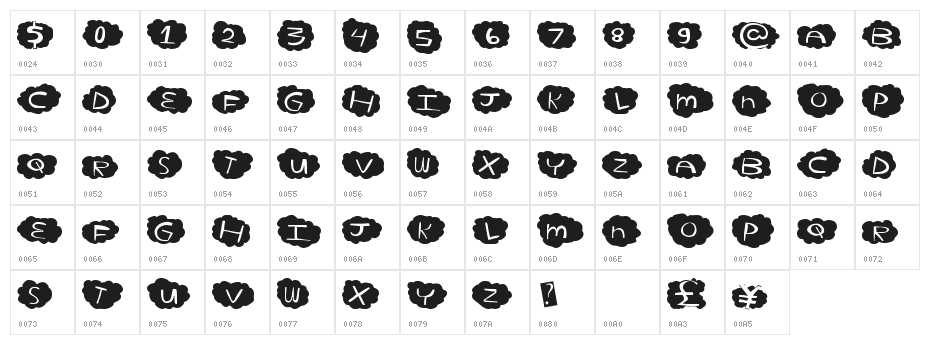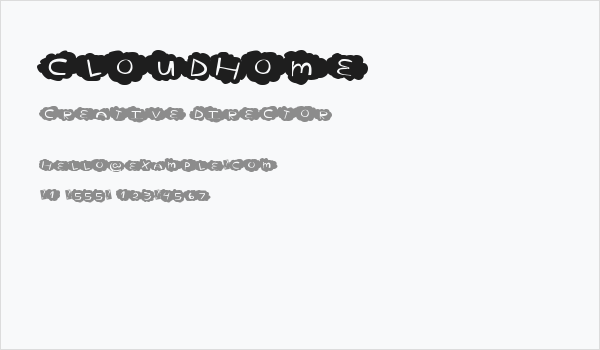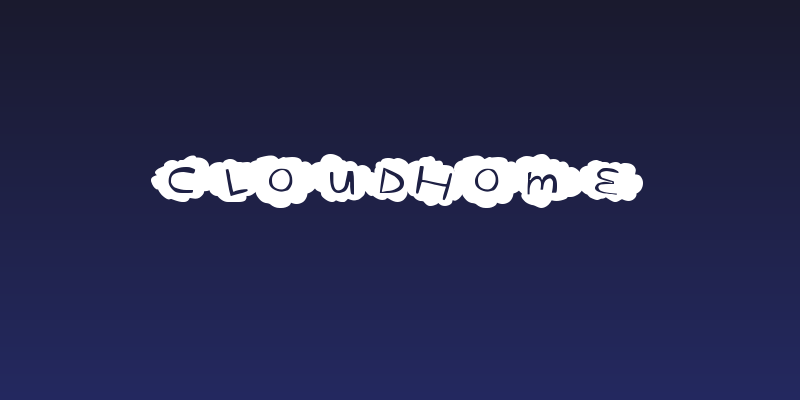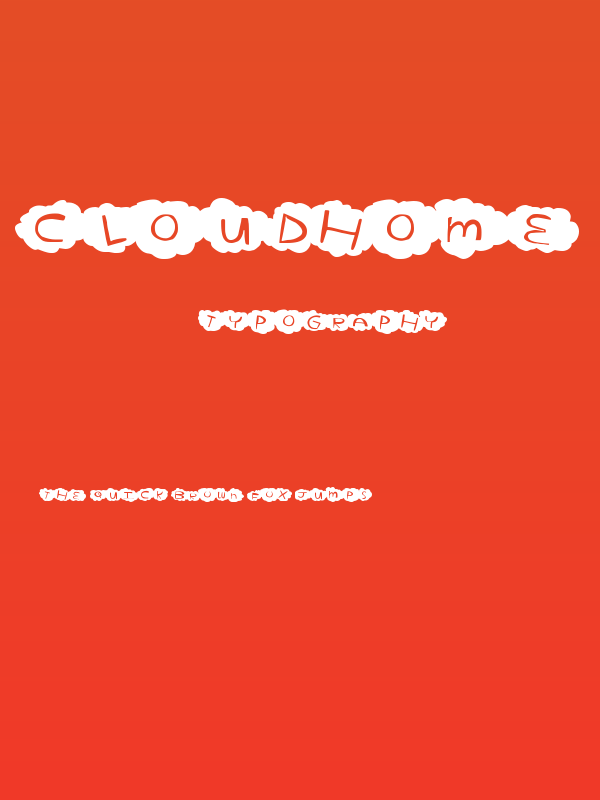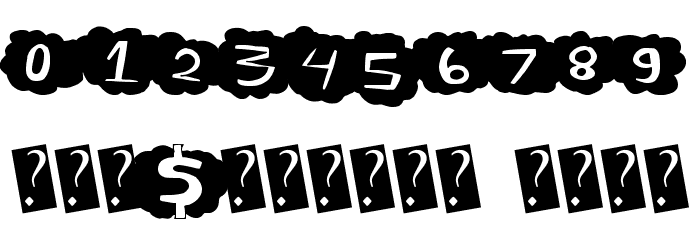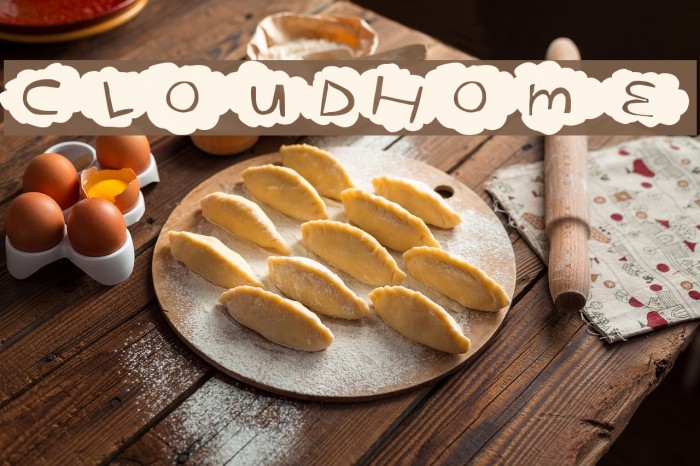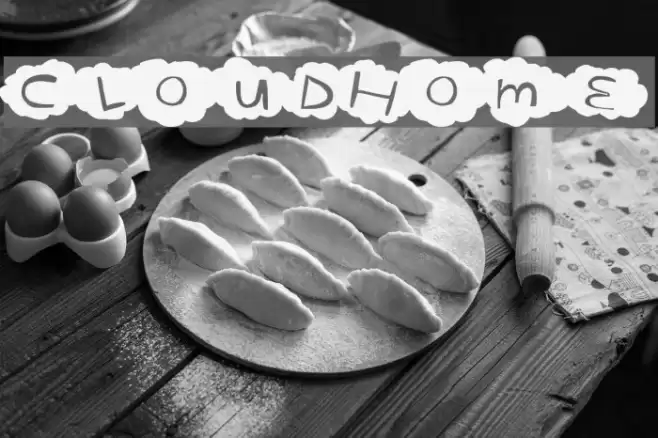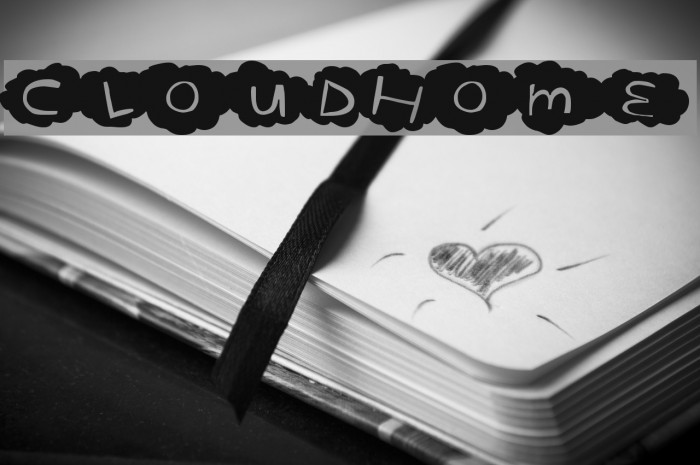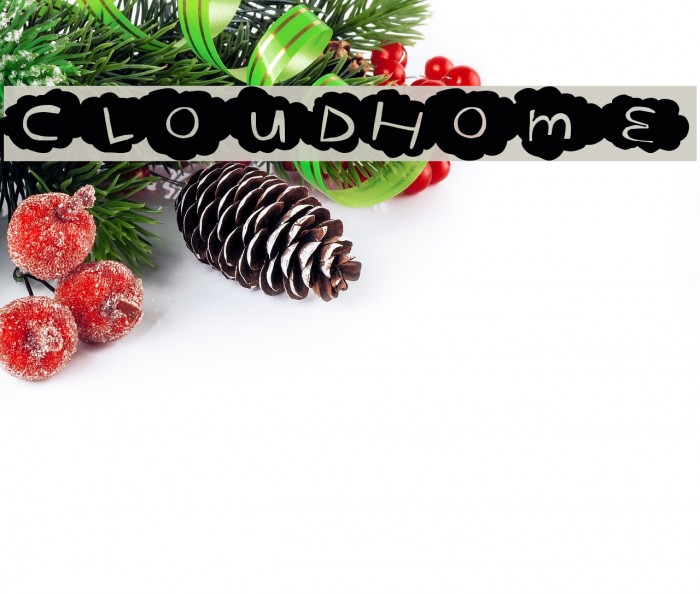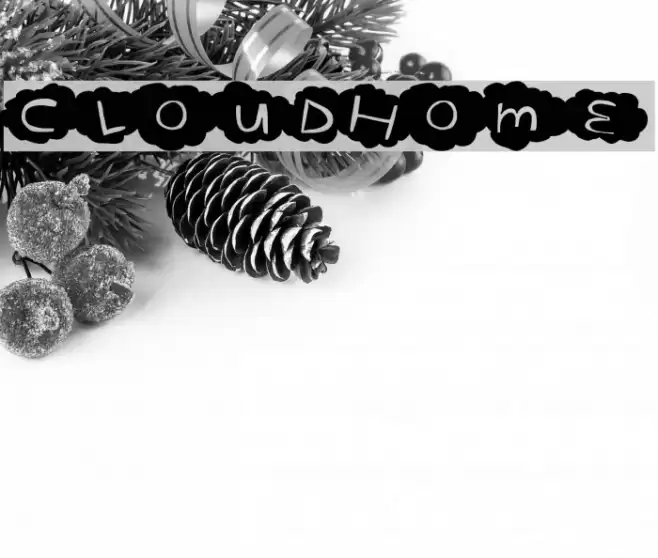
CloudHome Font
CloudHome Description
This playful and whimsical font features bold, cloud-like shapes surrounding each character, creating a fun and eye-catching appearance. The letters are uppercase and lowercase, with numbers and a selection of special characters. Each character is encased in a fluffy, cloud-like outline, giving it a unique and decorative style. The font is highly stylized, making it suitable for creative and informal projects. The boldness of the characters ensures high visibility, while the cloud motif adds a touch of whimsy and charm.
| Use Case | Logos, Headlines, Posters |
| Proposed Projects | Ideal for children's books, playful branding, party invitations, and creative posters. |